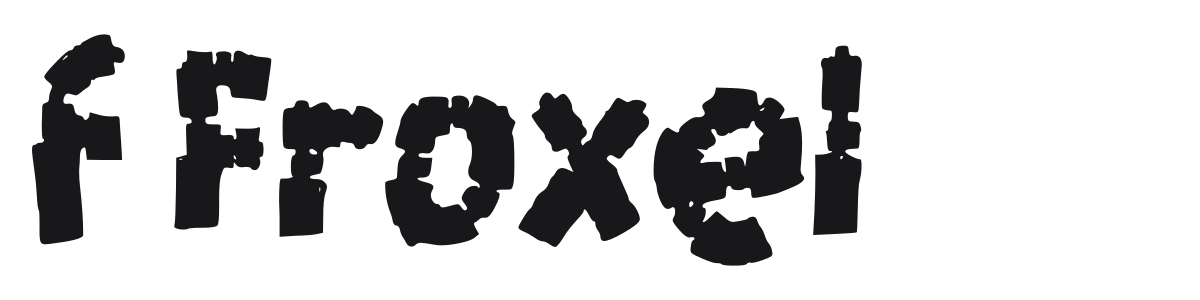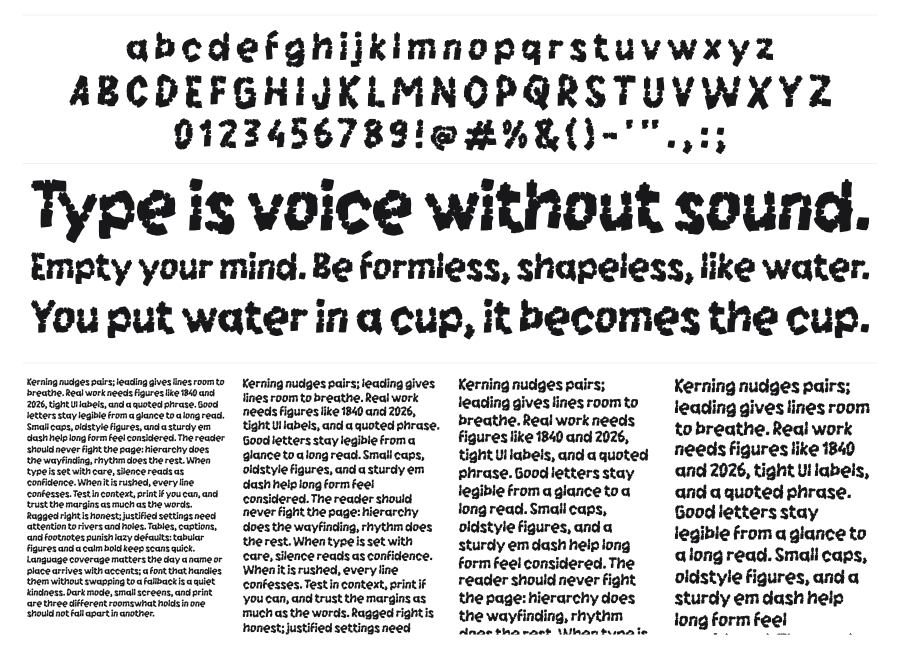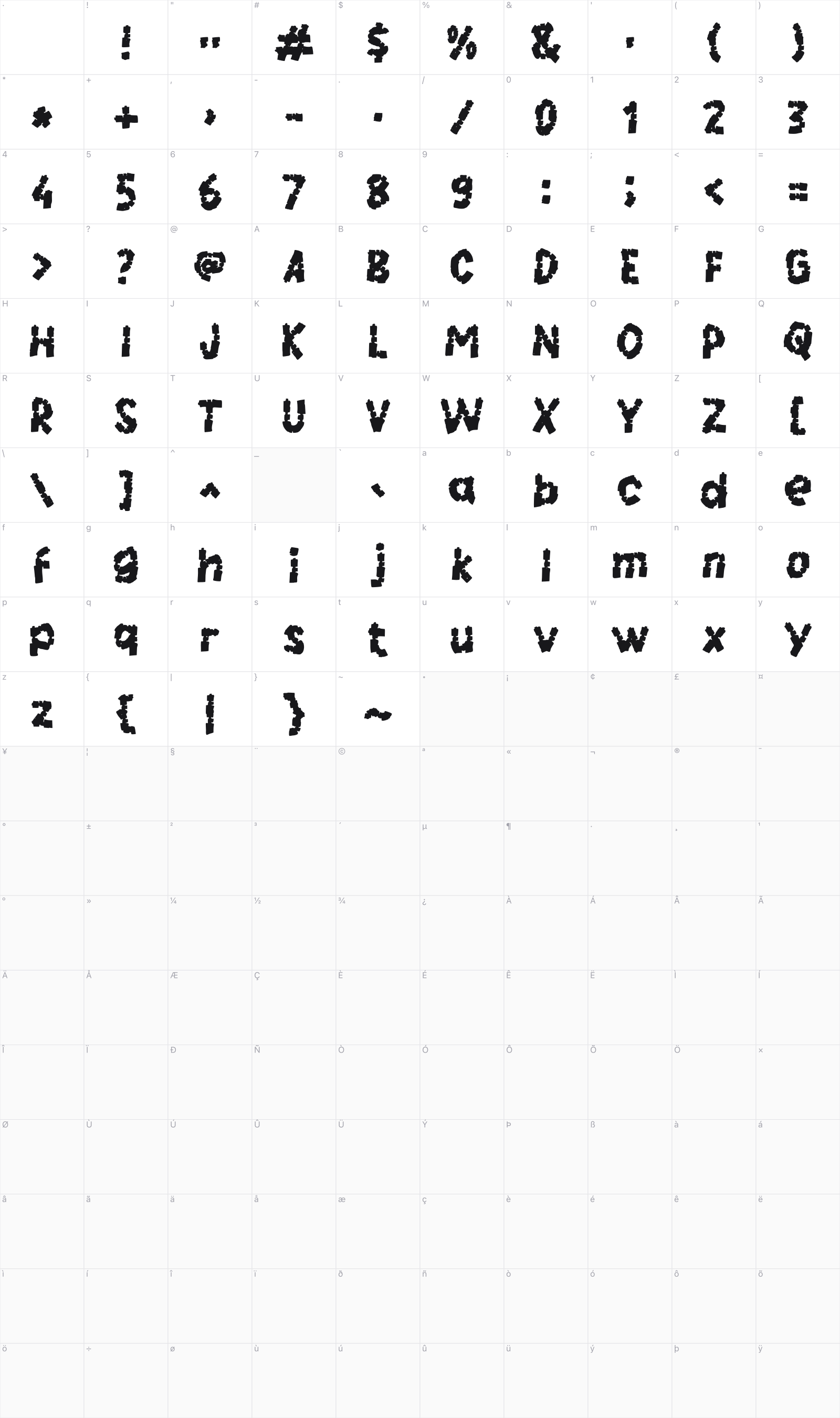
f Froxel
FroxelLicense is a heavily eroded display font where every character looks like it has been slowly consumed by rust, rot, or crumbling stone. The bold, chunky base forms are nearly overwhelmed by irregular pitting and fracturing across the strokes. That tension between solid weight and surface destruction gives it a visceral, underground energy.